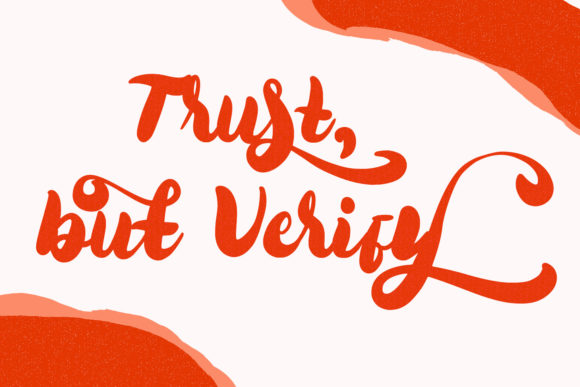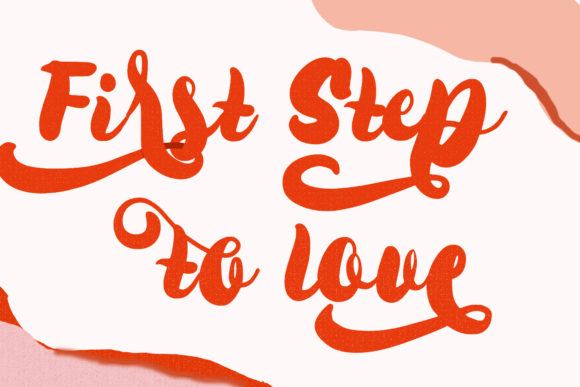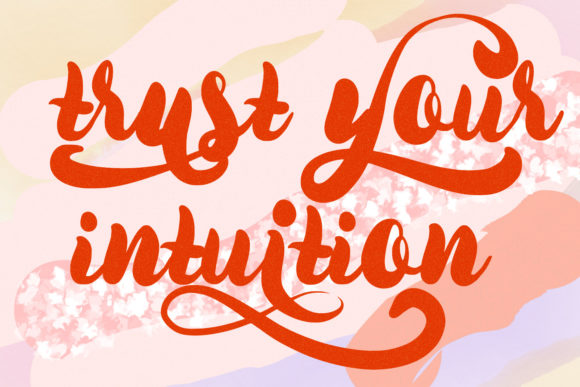
Introduction to Love River Font
Have you ever been in a moment where you’re surrounded by love, laughter, and endless possibilities? Perhaps it’s the excitement of planning a wedding, or the joy of receiving a heartfelt thank you card. Whatever the occasion, the right font can elevate the emotions and make the moment truly unforgettable. For designers, finding the perfect font can be a challenge, but what if I told you that there’s a font that can add a touch of romance and whimsy to any creative project?
Enter the Love River Font, a stunning, handwritten font that’s perfect for adding a high-quality, personal touch to your designs. With its flowing, cursive lines and transparent background, this font is a design resource that’s sure to impress. Whether you’re working on a wedding invitation, a quote, or a business card, the Love River Font is a valuable asset that can help you create something truly special.
Key Features of Love River Font
- Includes a range of glyphs, making it suitable for multilingual creative projects
- Features a unique, elegant design that can add a touch of sophistication to any project
Honest Review: Love River Font
As a designer, I’m always on the lookout for high-quality design resources that can elevate my creative projects. Recently, I stumbled upon the Love River Font, and I must say it’s a gem.
What works well about the Love River Font is its elegant and cursive script style, perfect for titles and headings. The transparent background makes it easy to customize and pair with any color scheme. The font also comes in various weights and styles, making it a versatile design resource.
- High-quality design with a elegant and cursive script style
- Available in various weights and styles
However, there are a few limitations to consider: ⚠️ the font may not be suitable for body text due to its flowing nature, and ⚠️ some users may find it a bit too ornate for their taste.
Overall, I’m impressed with the Love River Font. It’s a beautiful design resource that can add a touch of sophistication to any creative project. If you’re looking for a high-quality, elegant font for your next project, the Love River Font is definitely worth checking out. ✨
The Love River Font is a high-quality, elegant font perfect for any creative project. With its transparent background and versatile design, it’s an ideal design resource for artists and designers.
The Love River Font is perfect for:
– Wedding invitations and stationery
– Fine art prints and posters
– Branding and logo design
– Any creative project that requires a touch of elegance and sophistication
Alternatives to Love River Font
The Alex Brush Font is a high-quality script font that features a transparent background, making it perfect for creative projects that require a touch of elegance. This font is ideal for designers looking for a sophisticated and refined look.
It compares to Love River Font in its elegance and refined feel, but with a more classic and traditional aesthetic. It’s a great choice for designers who want to add a touch of sophistication to their design resource without being too bold or overpowering.
The Great Vibes Font is a beautiful, hand-drawn script font that is perfect for designers who want to add a creative and whimsical touch to their projects. This font features a transparent background and is ideal for designers who want to create a high-quality design resource that stands out.